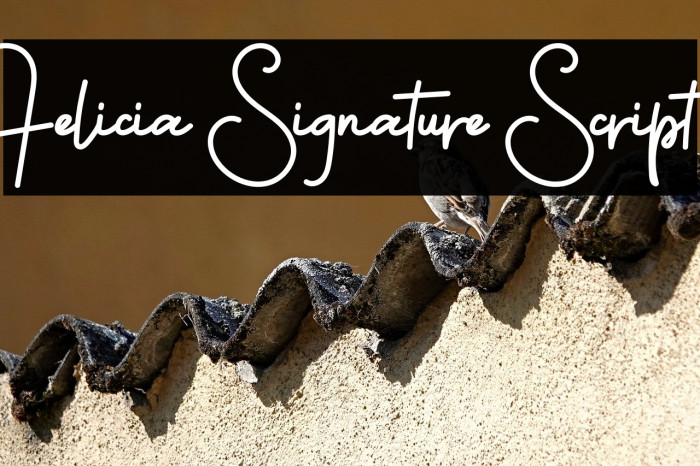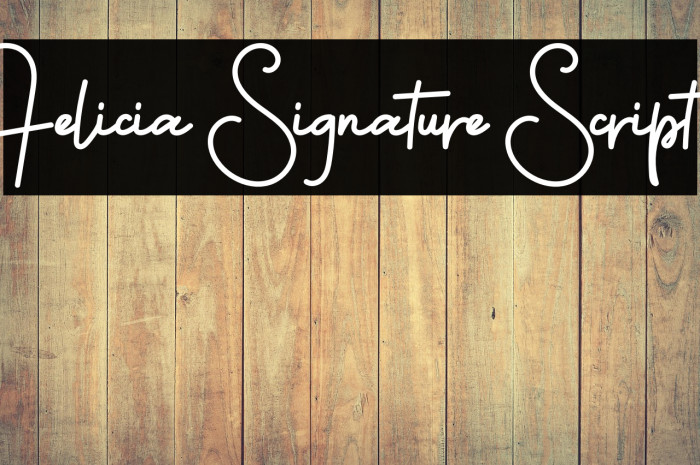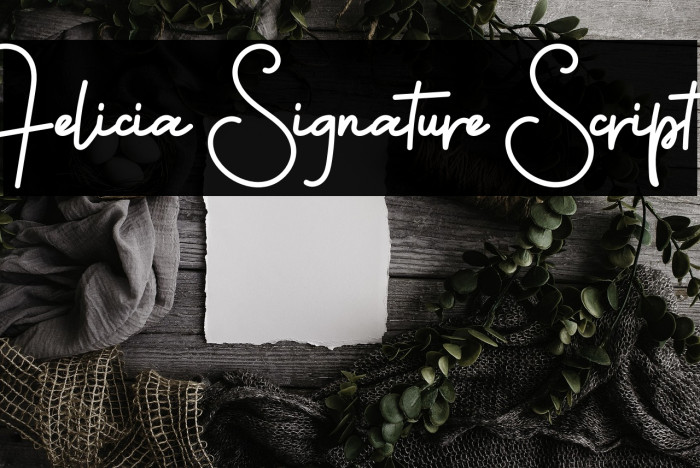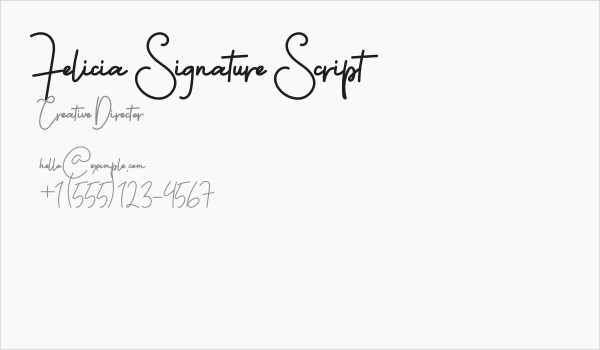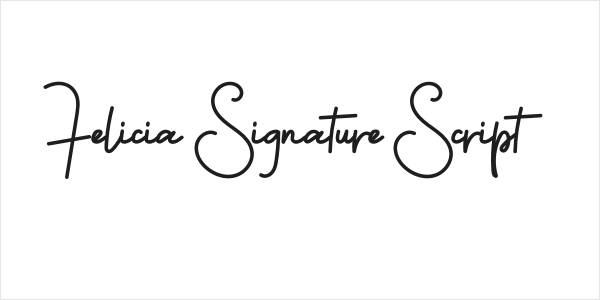
Felicia Signature Script Font
Felicia Signature Script Description
This font embodies a flowing, cursive style that mimics the fluidity of a personal signature. The letters are elegantly connected, creating a seamless and sophisticated appearance. The uppercase characters are tall and slender, while the lowercase letters maintain a consistent height, enhancing readability. The numerals and special characters are crafted with the same attention to detail, ensuring a cohesive look throughout. This script font exudes a sense of elegance and personal touch, making it ideal for projects that require a handwritten aesthetic.
| Overall Style | Elegant, Handwritten |
| Use Case | Logos, Invitations, Personal Branding |
| Proposed Projects | Ideal for wedding invitations, personal branding, logo design, and stationery that require a personal, elegant touch. |